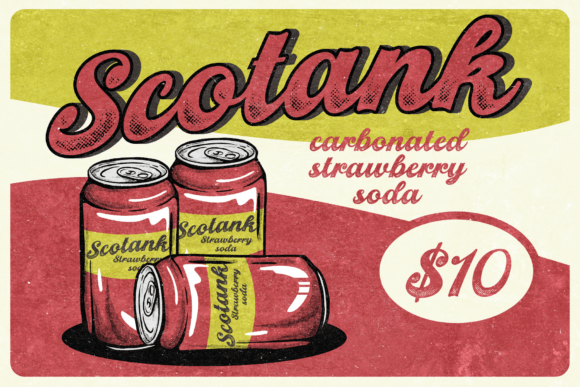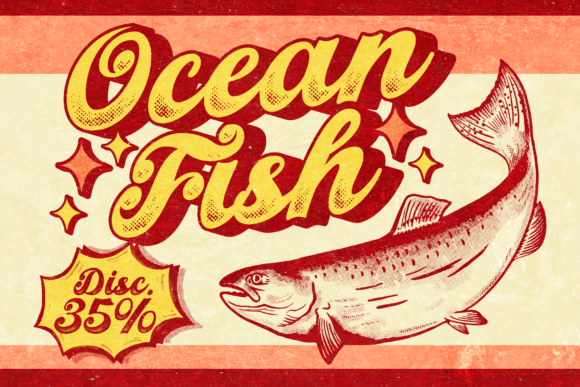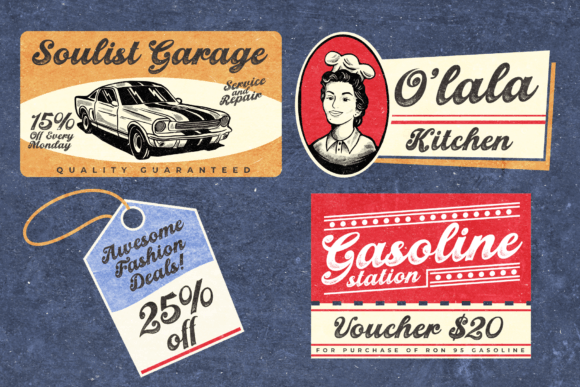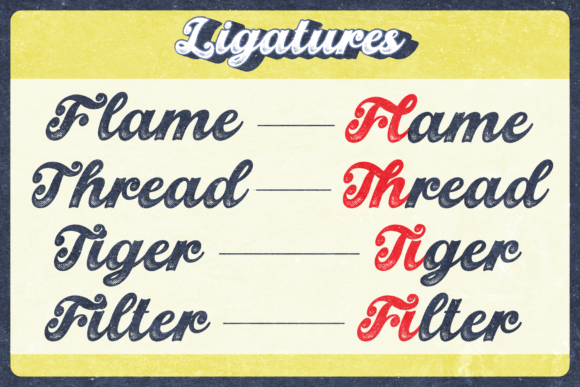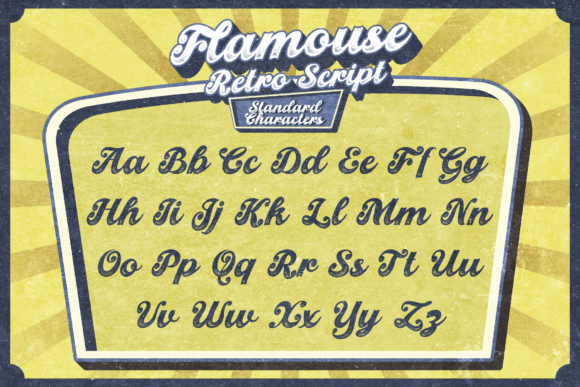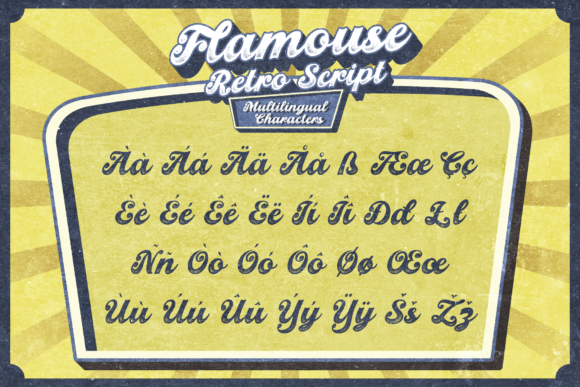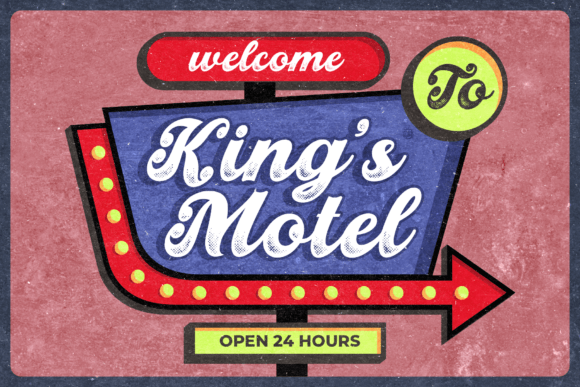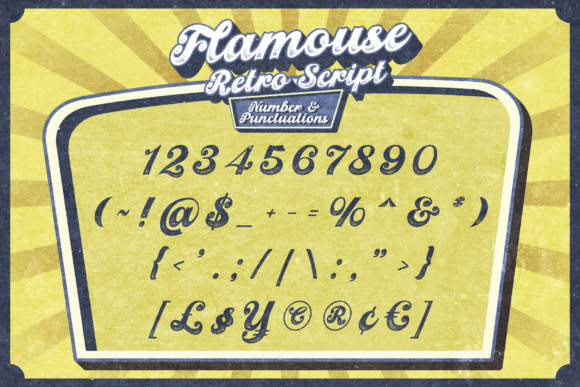
Flamouse Font
About Flamouse Font
A Retro Script with Classic Charm
The Flamouse Font download offers a bold and fun retro look that instantly draws attention. Designed with a thick style and a halftone texture at the bottom, it creates a nostalgic feel that’s perfect for vintage-themed designs. Even though it has a strong look, it remains playful and stylish.
Ideal for Many Creative Uses
You can use Flamouse in many ways. For example, it works well for:
• Old-fashioned restaurant logos
• Food and drink packaging
• Supermarket promotions
• T-shirt designs with a Baseball theme
• Vintage hotel or bar signs
Because of its retro style, Flamouse adds personality to every project. Whether you’re designing for print or digital use, this font will shine.
Easy to Use and Highly Versatile
Installing this font is quick and simple. Once added, you’ll find it fits nicely with both large headers and standout branding elements. In fact, it’s especially powerful when used in bold titles. Moreover, its rounded edges and texture make it feel handcrafted and real.
Flamouse Font download retro script with halftone style